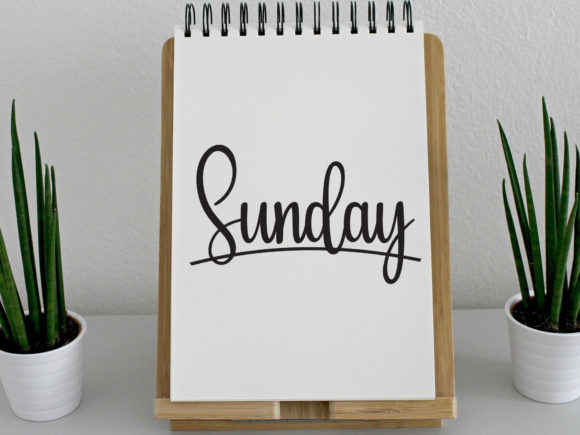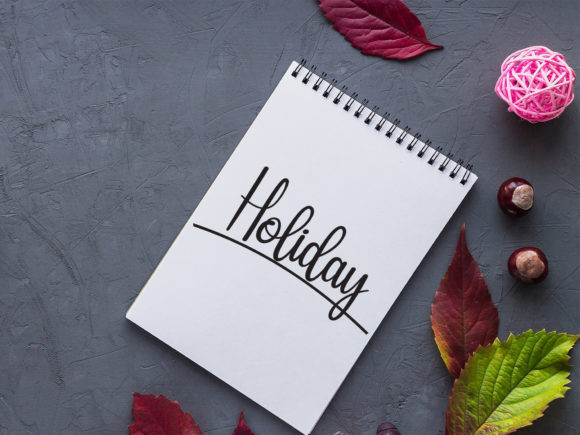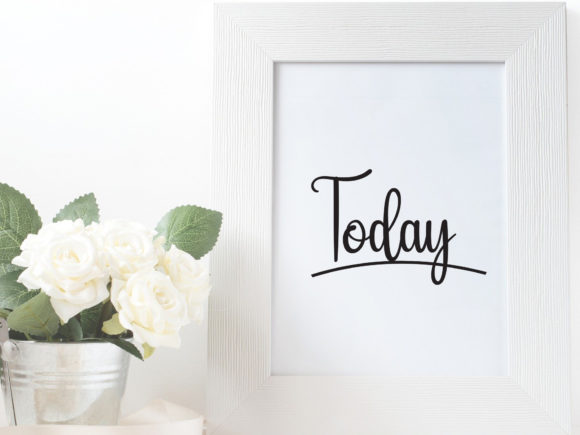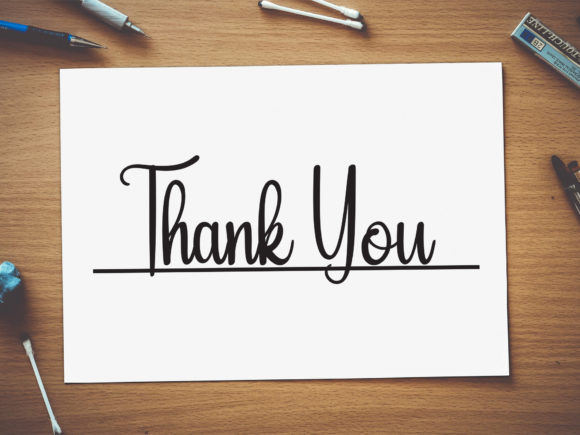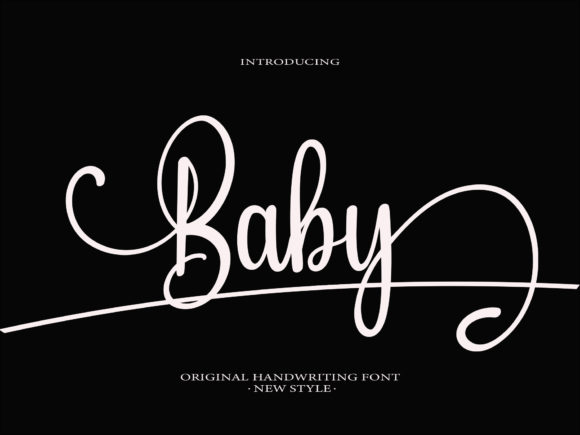
Baby Font: The Sweetest Handwritten Font for Your Creative Projects
Are you a designer, crafter, or DIY enthusiast looking for a font that can add a touch of sweetness and innocence to your creative projects? Look no further than Baby Font, a beautiful handwritten font that is designed to produce the expected outcomes with great care. In this article, we’ll explore the features and benefits of Baby Font, and how it can be used to elevate your designs and crafts.
What is Baby Font?
Baby Font is a sweet handwritten font that is made with great care to produce high-quality typography. This font is designed to be versatile and can be used for writing various kinds of products, from invitations and greeting cards to crafts and DIY projects. With its delicate and charming letterforms, Baby Font is perfect for adding a touch of whimsy and playfulness to your designs.
Features of Baby Font
Baby Font has several features that make it a great choice for designers and crafters. Some of its key features include:
- Handwritten style: Baby Font has a beautiful handwritten style that is perfect for adding a personal touch to your designs.
- Delicate letterforms: The font features delicate letterforms that are designed to be elegant and sophisticated.
- Versatile: Baby Font can be used for a wide range of projects, from invitations and greeting cards to crafts and DIY projects.
- Easily readable: The font is designed to be easily readable, making it perfect for use in body text or headings.
Benefits of Using Baby Font
There are several benefits to using Baby Font in your designs and crafts. Some of the benefits include:
- Adds a touch of sweetness: Baby Font adds a touch of sweetness and innocence to your designs, making it perfect for projects that require a playful and whimsical feel.
- Perfect for DIY projects: The font is perfect for use in DIY projects, such as crafting, scrapbooking, and card making.
- Easily customizable: Baby Font can be easily customized to fit your design needs, making it perfect for use in a wide range of projects.
- Great for branding: The font can be used for branding purposes, such as creating logos, business cards, and letterheads.
How to Use Baby Font
Using Baby Font is easy and straightforward. Here are some tips on how to use the font in your designs and crafts:
- Pair it with other fonts: Baby Font can be paired with other fonts to create a unique and interesting typography combination.
- Use it in headings and body text: The font can be used in headings and body text to create a cohesive and visually appealing design.
- Add embellishments: You can add embellishments, such as flowers or hearts, to enhance the design and make it more playful.
- Experiment with colors: Baby Font can be used with a wide range of colors, so feel free to experiment and find the perfect color combination for your design.
In conclusion, Baby Font is a beautiful handwritten font that is perfect for designers, crafters, and DIY enthusiasts. With its delicate and charming letterforms, Baby Font adds a touch of sweetness and innocence to any design or craft project. Whether you’re creating invitations, greeting cards, or DIY projects, Baby Font is a great choice. So why not give it a try and see how it can elevate your designs and crafts?